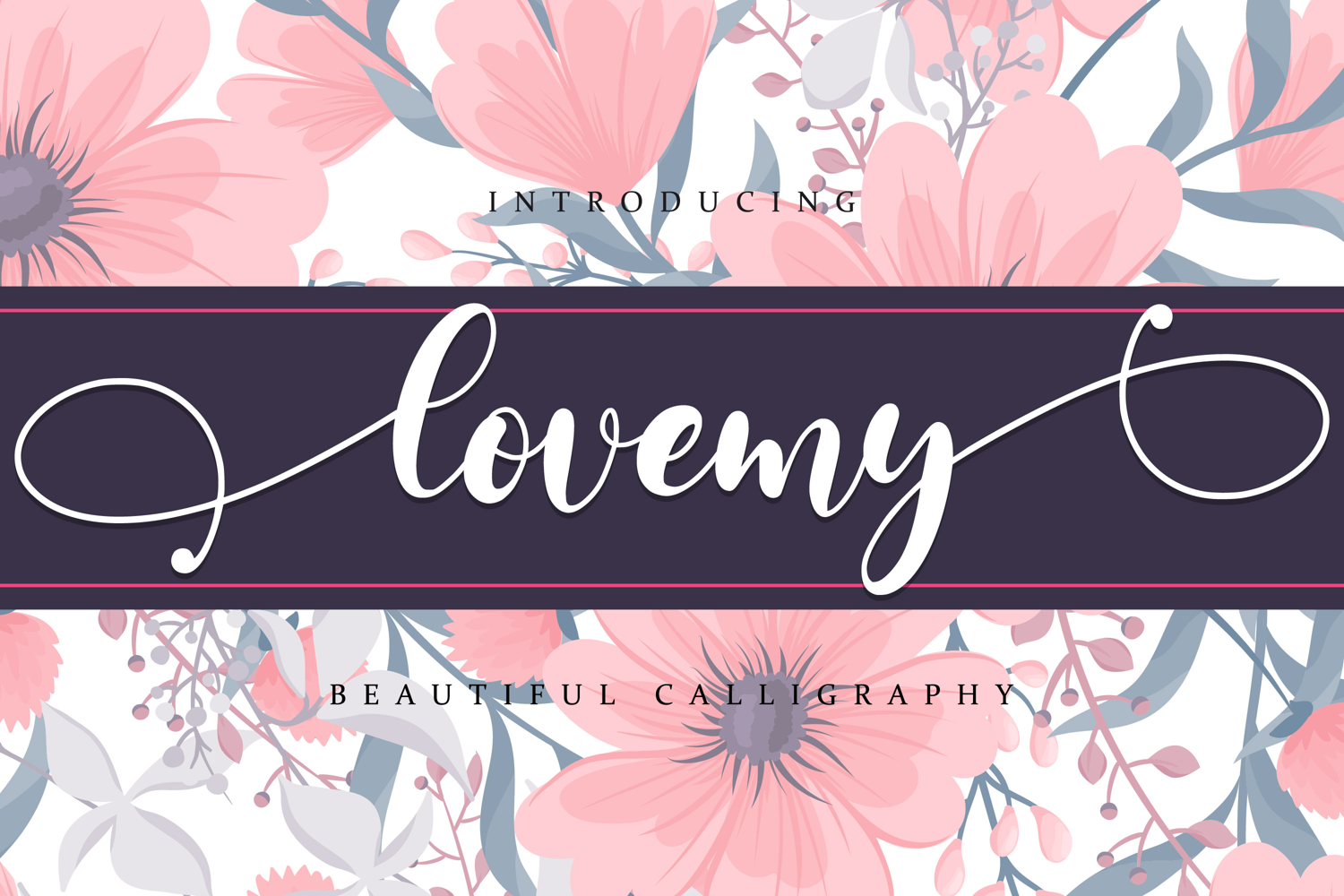
Lovemy - Beatiful Script Font
Lovemy is a script font with a natural handwritten feel. It has lovely ligatures and alternates that are perfect for any creative design. This handmade font will make your design has a beautiful natural touch for each details. It is perfect for any design project as Invitation,logo, book cover, craft or any design purposes. This font is PUA encoded which means you can access all of the magical glyphs and swashes with ease! It also features a wealth of special features including alternate glyphs and ligatures.